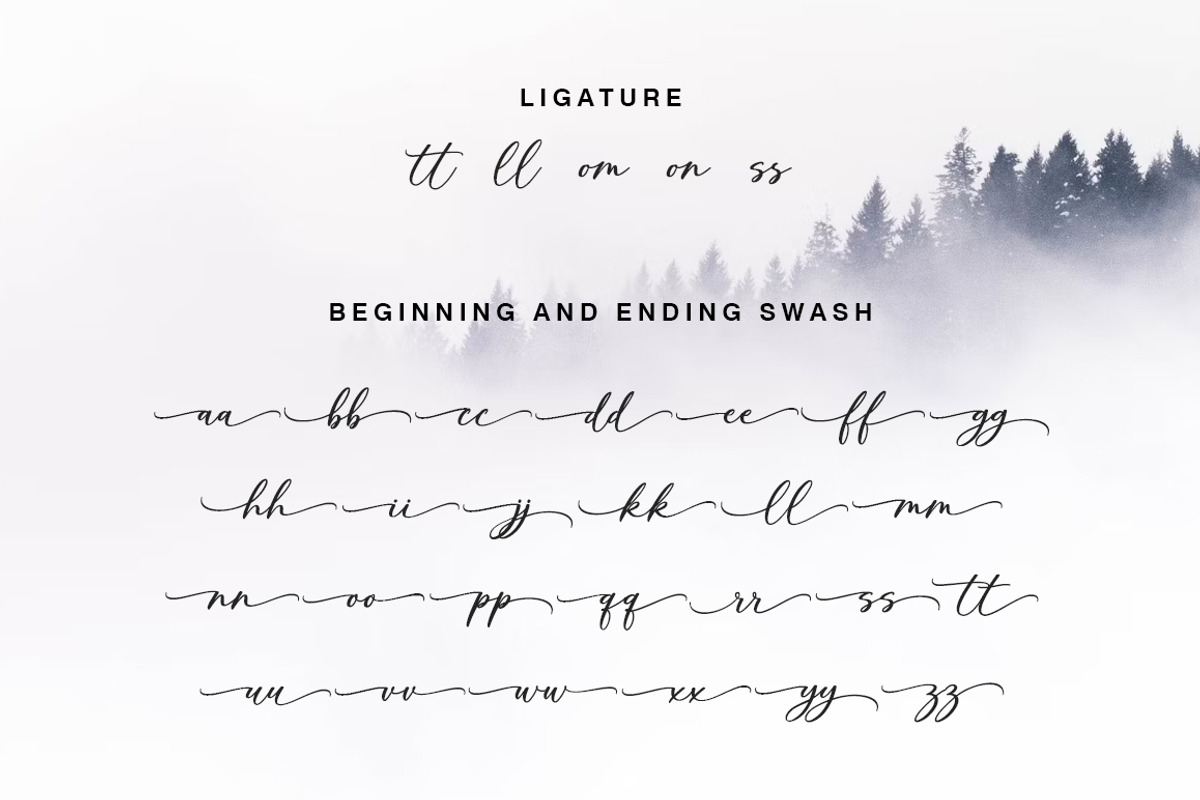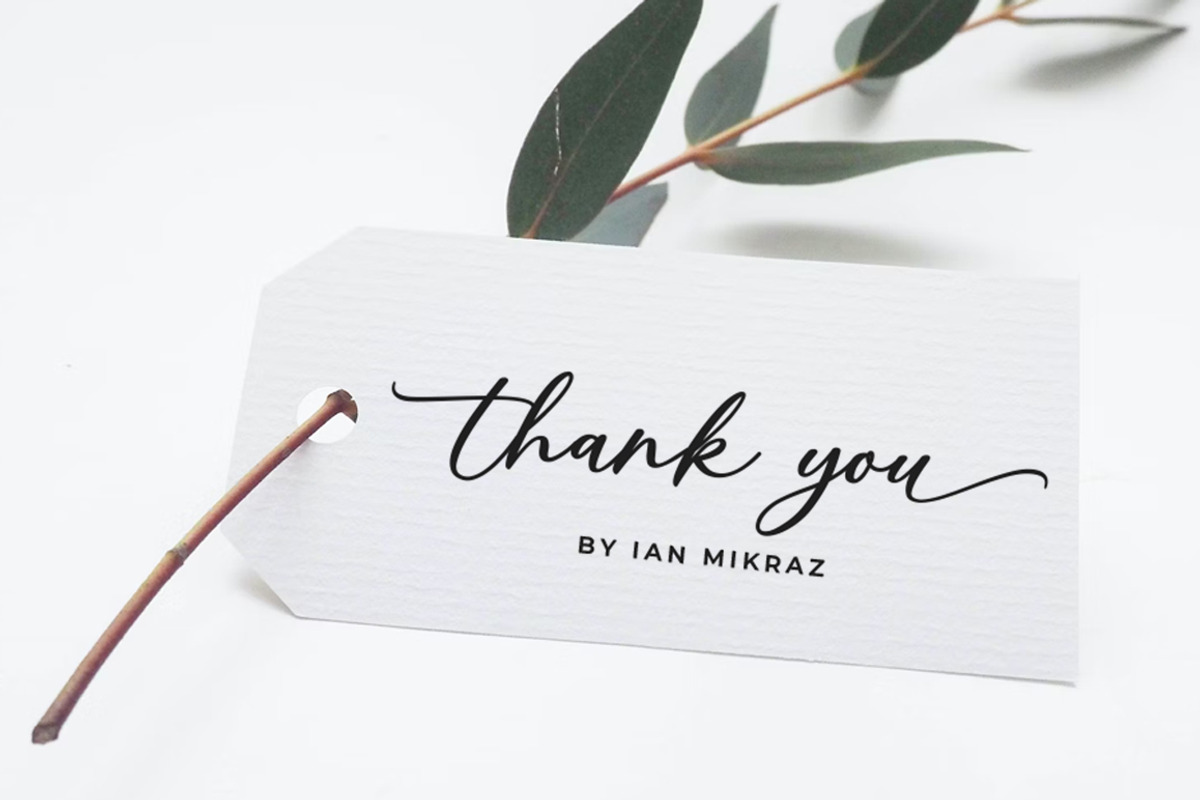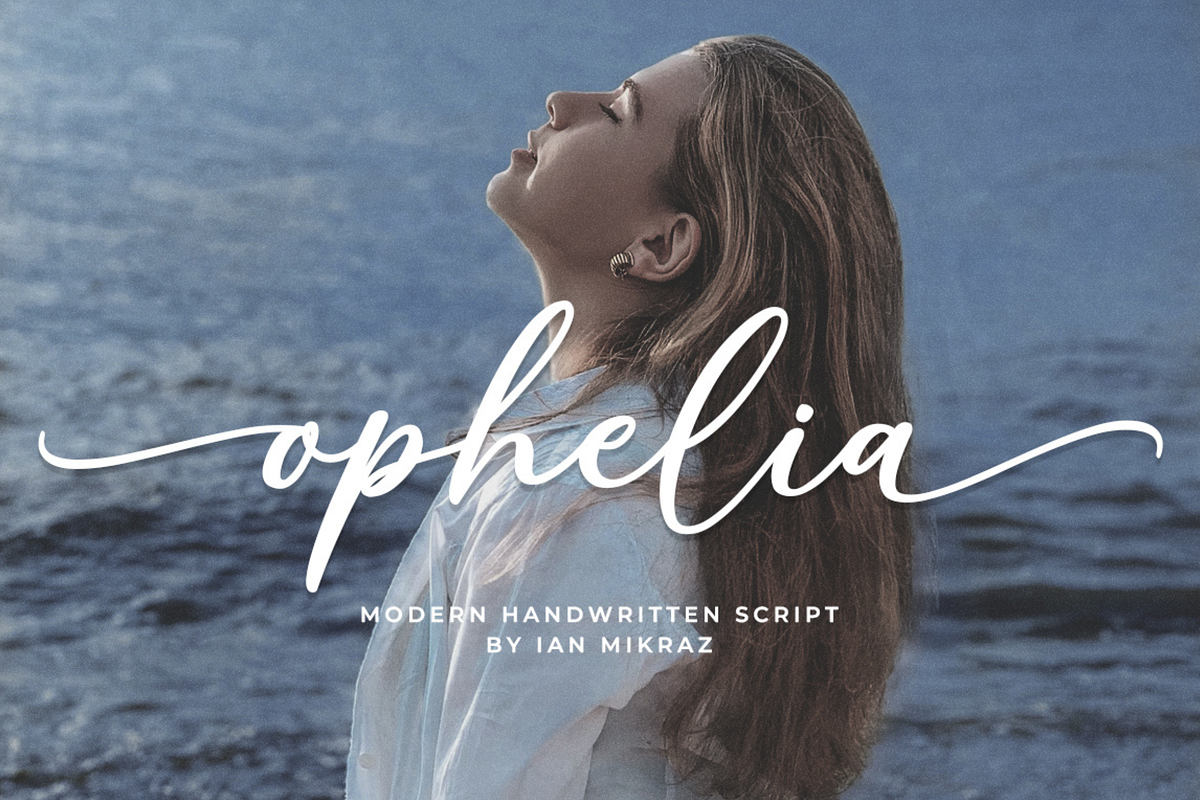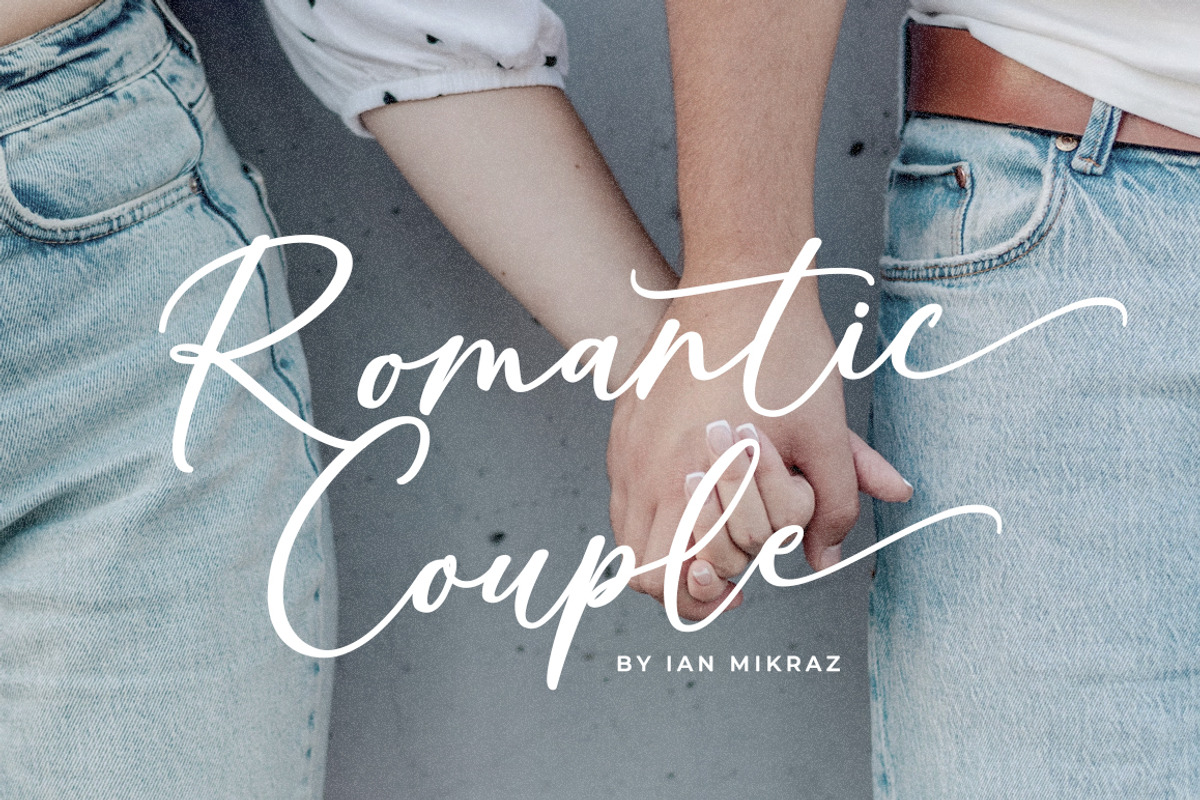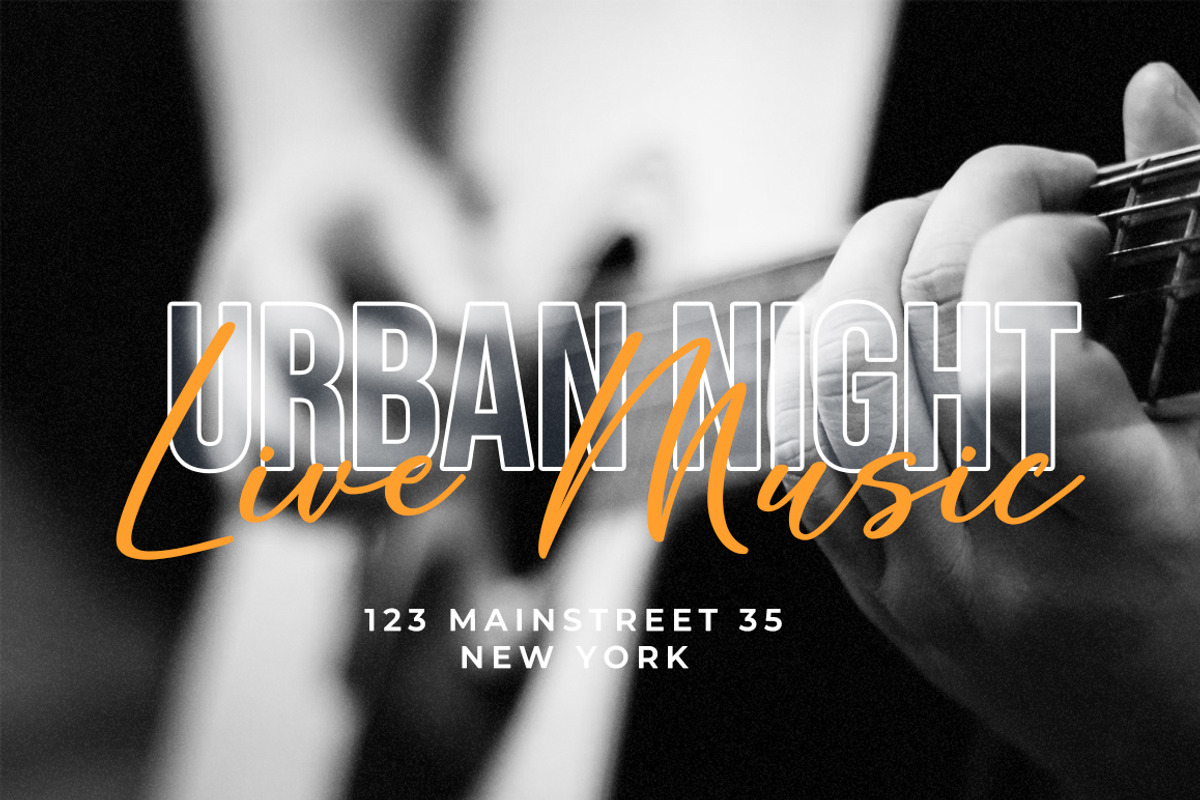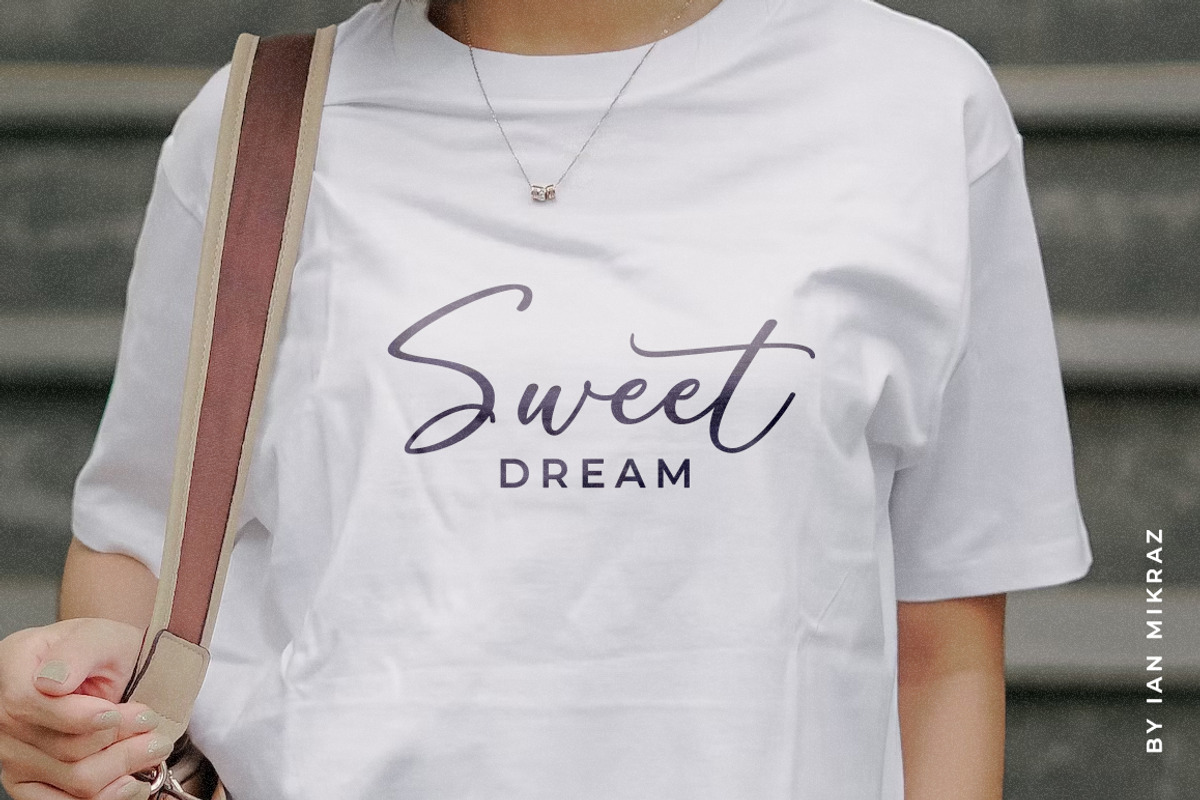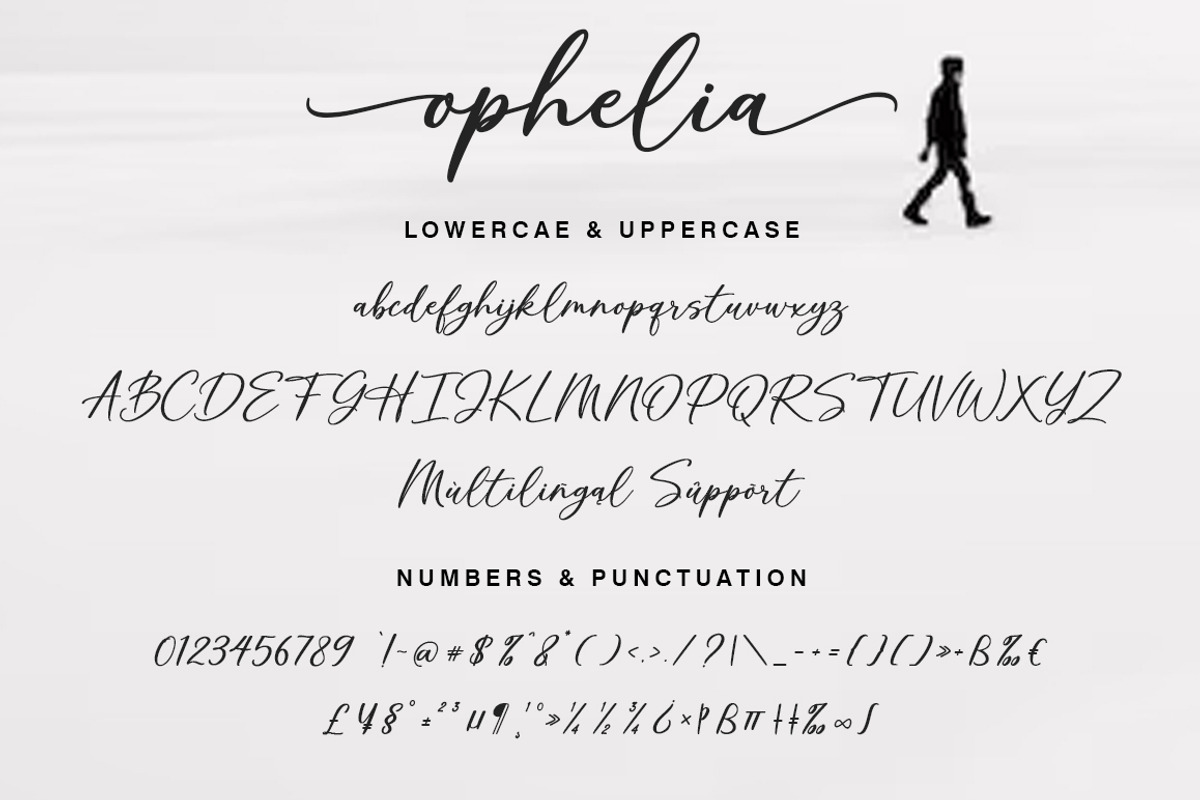
Ophelia - A Modern Handwritten Scrip
Ophelia - A Modern Handwritten Script
Ophelia is not just a font; it's a journey into the artistry of handwritten elegance. Crafted with a contemporary touch, Ophelia brings a modern flair to the timeless charm of handwritten scripts. Each stroke is an expression of grace, making it the perfect choice for projects that demand a balance of sophistication and approachability.
Whether you're designing wedding invitations, branding materials, or social media graphics, Ophelia lends a personalized touch to your creations.
Designed for versatility, Ophelia effortlessly adapts to various design needs, from digital platforms to print. Its fluid and dynamic nature ensures that your text flows naturally, creating a seamless and engaging visual experience.
Elevate your design projects with the understated beauty of Ophelia, where modernity and handwritten charm converge in perfect harmony.
- Standart ligatures